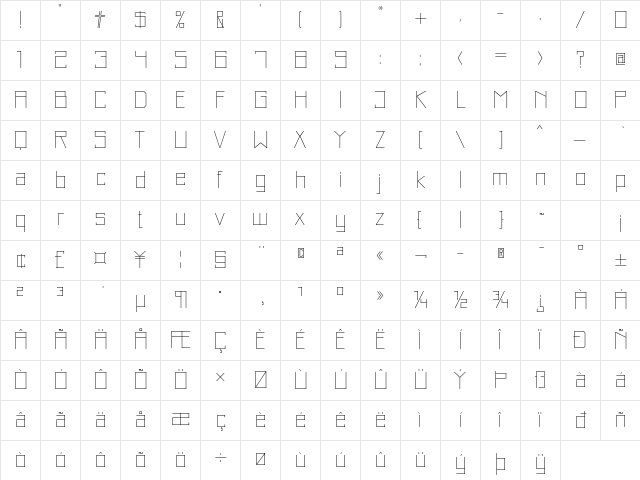
Complete Just Square LT Std Ultra Light glyph index. Displaying only characters natively supported by Just Square LT Std Ultra Light font.
Just Square LT Std is a composed and adaptable typeface that performs quietly and consistently across a wide range of design contexts. Its slender proportions lend an understated elegance to any composition.